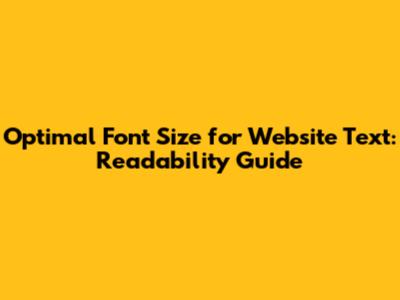
Optimal Font Size For Website Text: Readability Guide
Choosing the best font size for website text is crucial for ensuring readability and a positive user experience. If your text is too small, visitors will struggle to read it, leading to frustration and a quick exit from your site. On the other hand, excessively large text can appear unprofessional and overwhelm the reader. Finding that sweet spot requires a balanced approach, considering various factors such as font family, screen size, and target audience. Let's dive into the essentials of selecting the ideal font size to keep your audience engaged and your website accessible.
Why Font Size Matters
The importance of font size extends far beyond mere aesthetics. It directly impacts usability, accessibility, and overall user satisfaction. Think about it: have you ever visited a website where the text was so tiny that you had to squint or zoom in constantly? It's annoying, right? That's a clear sign of poor font size choice. A well-chosen font size contributes significantly to the readability of your content. Readability, in turn, influences how long visitors stay on your site, how thoroughly they engage with your message, and whether they ultimately convert into customers. When text is easy to read, users can focus on the content itself, rather than struggling with the presentation. This leads to better comprehension and a more enjoyable browsing experience. Furthermore, the right font size plays a vital role in making your website accessible to users with visual impairments. Adhering to accessibility guidelines, such as those outlined in WCAG (Web Content Accessibility Guidelines), often includes specifying a minimum font size to ensure that all users can access and understand your content. Ignoring these guidelines can alienate a significant portion of your audience and even expose you to legal risks. So, remember guys, selecting the right font size is not just about making your website look pretty; it's about making it usable, accessible, and ultimately more effective.
General Guidelines for Font Size
So, what are the general guidelines for font size that you should follow? As a starting point, aim for a base font size of 16px for body text. This is a widely accepted standard that provides good readability on most screens. However, remember that this is just a starting point, and you may need to adjust it based on your specific font family and design. For headings, use larger font sizes to create a clear visual hierarchy. H1 headings should be the largest, followed by H2, H3, and so on, each decreasing in size. A common practice is to use a scaling factor to determine heading sizes relative to the base font size. For example, you might use a scaling factor of 2 for H1, 1.5 for H2, and 1.2 for H3. This ensures that your headings stand out without overwhelming the body text. Line height, also known as leading, is another critical factor to consider. It refers to the vertical space between lines of text. A comfortable line height improves readability by preventing lines from appearing too cramped. A general rule of thumb is to set the line height to 1.5 times the font size. For example, if your font size is 16px, your line height should be around 24px. Adjust this value as needed to achieve optimal readability for your chosen font family and content. Also, pay attention to letter spacing, also known as tracking. Tight letter spacing can make text appear dense and difficult to read, while excessive letter spacing can make the text look disjointed. Aim for a letter spacing that is visually pleasing and does not detract from readability. Some fonts may require slight adjustments to their letter spacing to achieve the desired effect. Remember that these are just general guidelines, and the best font size, line height, and letter spacing will depend on your specific design and content. Experiment with different values to find what works best for your website.
Choosing the Right Font Family
Choosing the right font family is as important as selecting the right font size. Different fonts have different characteristics that affect their readability and visual appeal. Some fonts are designed specifically for screen reading, while others are better suited for print. When selecting a font for your website, consider its legibility, personality, and compatibility with your brand. Serif fonts, such as Times New Roman and Georgia, have small decorative strokes called serifs at the end of each character. These fonts are often perceived as traditional and formal, and they can be easier to read in long blocks of text, especially in print. However, on screens, serifs can sometimes appear blurry or pixelated, especially at smaller font sizes. Sans-serif fonts, such as Arial and Helvetica, do not have serifs. They are generally considered to be more modern and clean, and they tend to be more legible on screens. Sans-serif fonts are a popular choice for website body text and headings. When choosing between serif and sans-serif fonts, consider the overall tone and style of your website. If you want to convey a sense of tradition and authority, a serif font might be a good choice. If you prefer a more modern and minimalist look, a sans-serif font is likely a better fit. In addition to serif and sans-serif fonts, there are also display fonts, which are designed to be used for headings and other decorative elements. Display fonts often have unique and eye-catching designs, but they are generally not suitable for body text due to their low legibility. When using display fonts, use them sparingly and make sure they are large enough to be easily readable. Also, consider font pairing. Combining different fonts can add visual interest to your website, but it can also be challenging to do well. A good rule of thumb is to choose one font for headings and another for body text. Make sure the two fonts complement each other and do not clash. Using too many different fonts can make your website look cluttered and unprofessional. There are many online resources that can help you find good font pairings. Ultimately, the best font family for your website will depend on your specific brand, design, and content. Experiment with different fonts and see what works best for you.
Responsive Font Sizes
In today's mobile-first world, responsive font sizes are essential for providing a consistent and user-friendly experience across all devices. A website that looks great on a desktop computer might be unreadable on a smartphone if the font sizes are not adjusted for smaller screens. Responsive font sizes automatically adjust to the screen size of the device being used to view the website. This ensures that the text is always legible, regardless of whether the user is viewing the site on a desktop, laptop, tablet, or smartphone. There are several ways to implement responsive font sizes. One common approach is to use relative units, such as ems and rems, instead of fixed units like pixels. Ems are relative to the font size of the parent element, while rems are relative to the root element (the HTML element). This allows you to scale font sizes proportionally as the screen size changes. Another approach is to use CSS media queries to define different font sizes for different screen sizes. Media queries allow you to apply different styles based on the characteristics of the device, such as its width, height, and resolution. For example, you might use a media query to increase the font size of body text on smaller screens to improve readability. When implementing responsive font sizes, it's important to test your website on a variety of devices to ensure that the text is legible and well-proportioned on all screens. Use browser developer tools to simulate different screen sizes and resolutions. Pay attention to the line height and letter spacing as well, as these factors can also affect readability on different devices. In addition to adjusting font sizes, you may also need to adjust other design elements, such as margins, padding, and image sizes, to create a truly responsive website. A responsive website adapts to the screen size of the device being used to view it, providing a consistent and user-friendly experience for all users.
Testing and Iteration
Testing and iteration are crucial steps in the process of selecting the best font size for your website. What looks good in theory might not always work well in practice, so it's important to gather feedback and make adjustments as needed. Start by testing your website on different devices and browsers. Use browser developer tools to simulate different screen sizes and resolutions. Pay attention to how the text looks and feels on each device. Is it easy to read? Is the line height comfortable? Are the headings clearly distinguished from the body text? Next, gather feedback from real users. Ask friends, family, or colleagues to review your website and provide their honest opinions on the font sizes. You can also use online tools, such as surveys and heatmaps, to gather data on user behavior and preferences. Pay attention to metrics such as bounce rate, time on page, and conversion rate. If users are leaving your website quickly or not engaging with your content, it could be a sign that your font sizes are not optimal. Don't be afraid to experiment with different font sizes and styles. Try different combinations of font families, font sizes, line heights, and letter spacing. Use A/B testing to compare different versions of your website and see which one performs best. A/B testing involves showing different versions of your website to different users and measuring which version leads to better results. For example, you might test two different font sizes for your body text and see which one leads to a lower bounce rate and a higher conversion rate. Remember that the process of testing and iteration is ongoing. As your website evolves and your audience changes, you'll need to continue to monitor your font sizes and make adjustments as needed. By continuously testing and iterating, you can ensure that your website always provides the best possible user experience.
Choosing the best font size for website text requires careful consideration of various factors, including font family, screen size, and target audience. By following the guidelines and best practices outlined in this article, you can create a website that is both visually appealing and easy to read. Remember to test your website on different devices and browsers and gather feedback from real users. By continuously testing and iterating, you can ensure that your website always provides the best possible user experience. And always remember guys, readability is king!